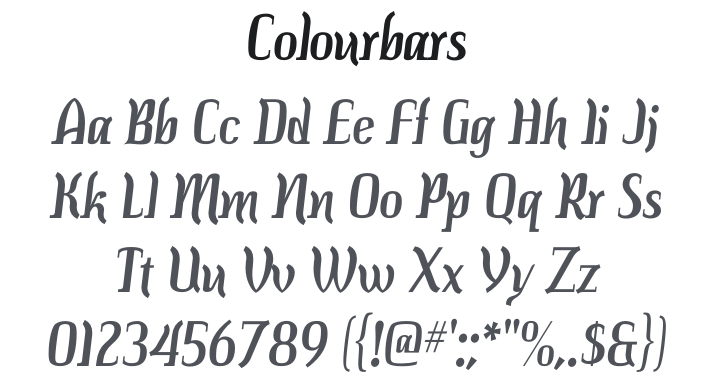
Colourbars Font Family
About Colourbars
Colourbars is a swoopy, cheerful italic serif display typeface with a warm, boyish slant — letters curve and lean with an energetic, carefree rhythm that feels friendly and approachable. Available in Regular and Bold. It works well for children's media, lifestyle branding, casual editorial headlines, greeting cards, and any design needing an upbeat, easygoing personality.